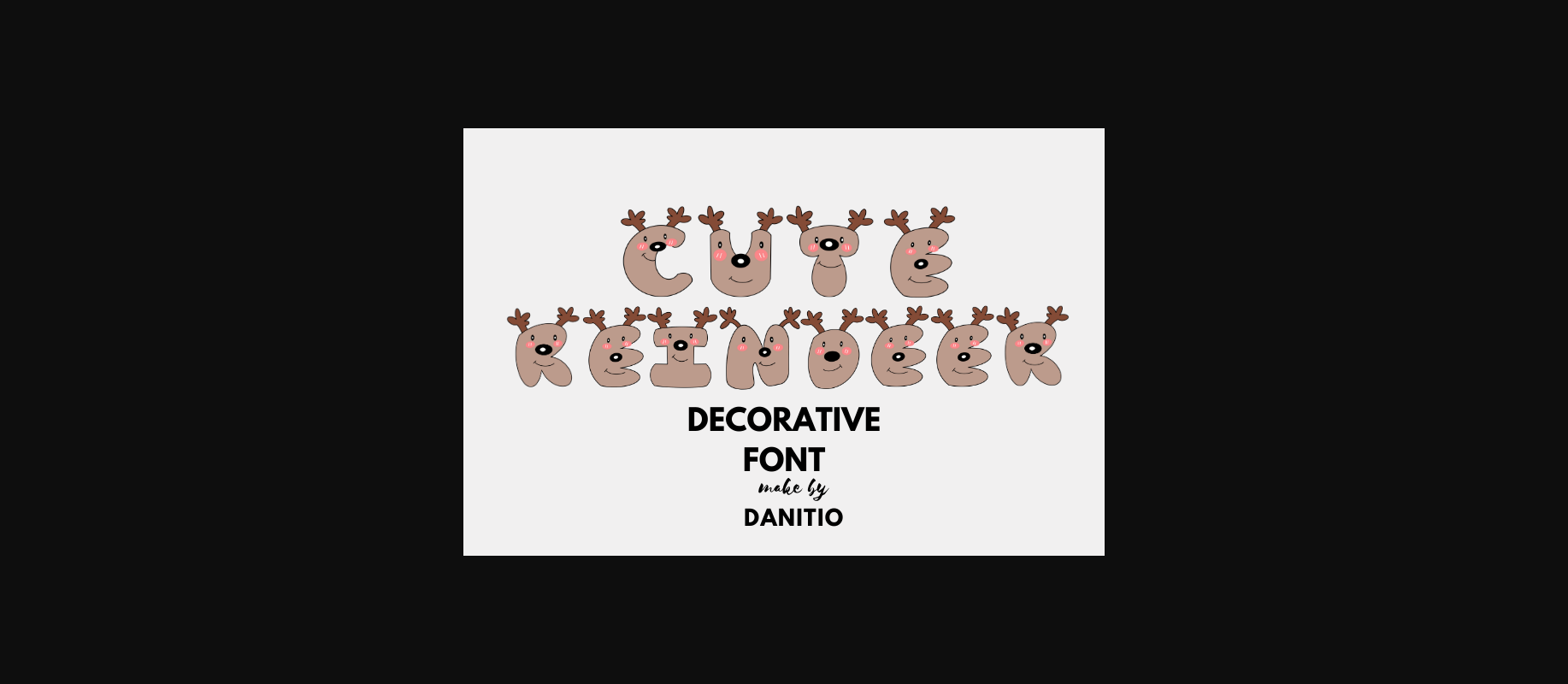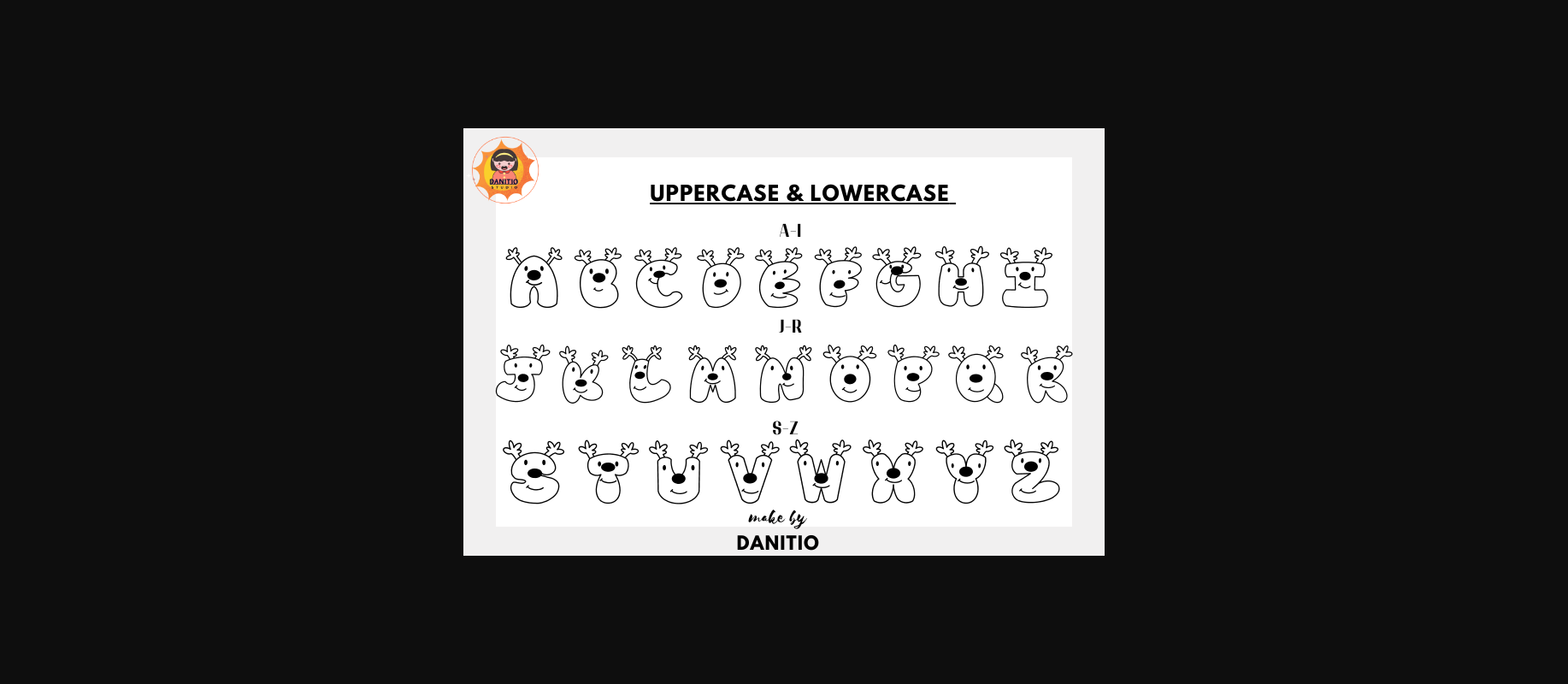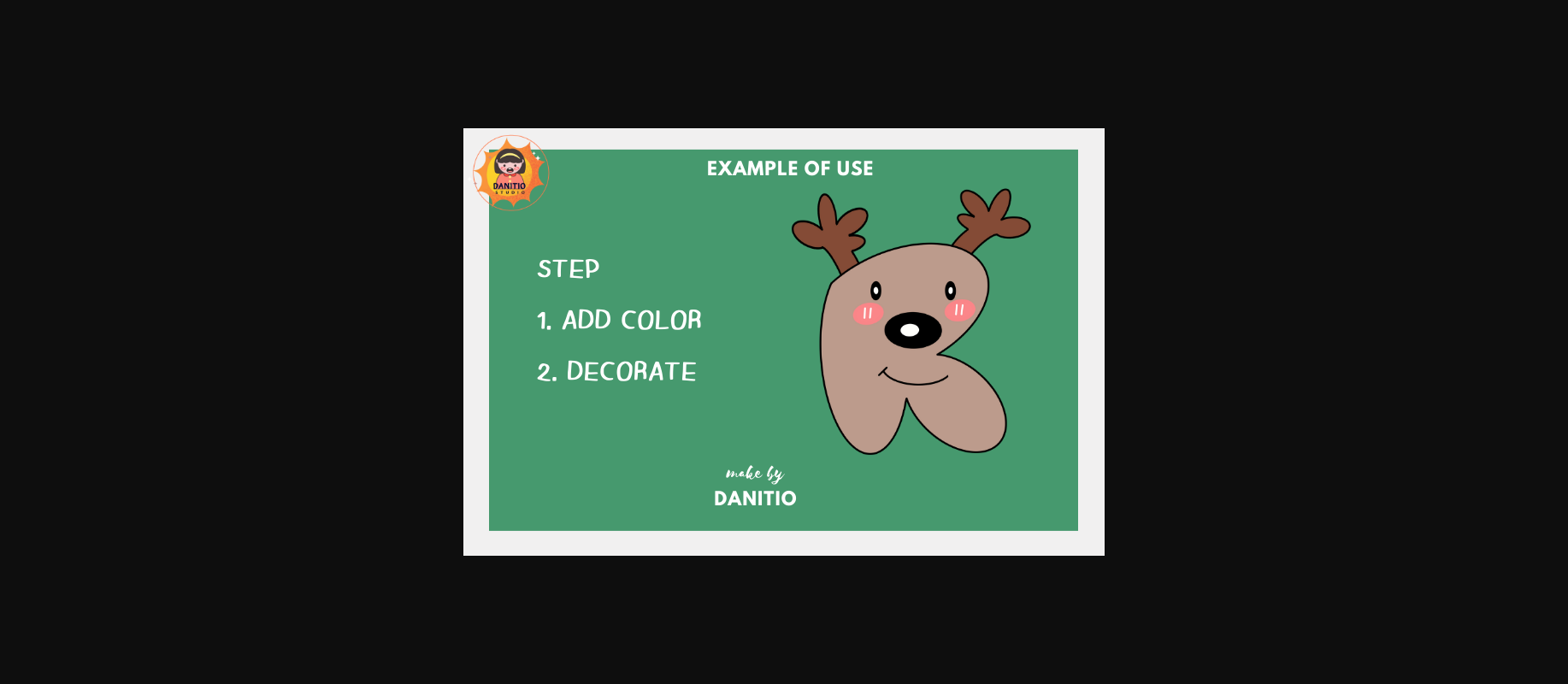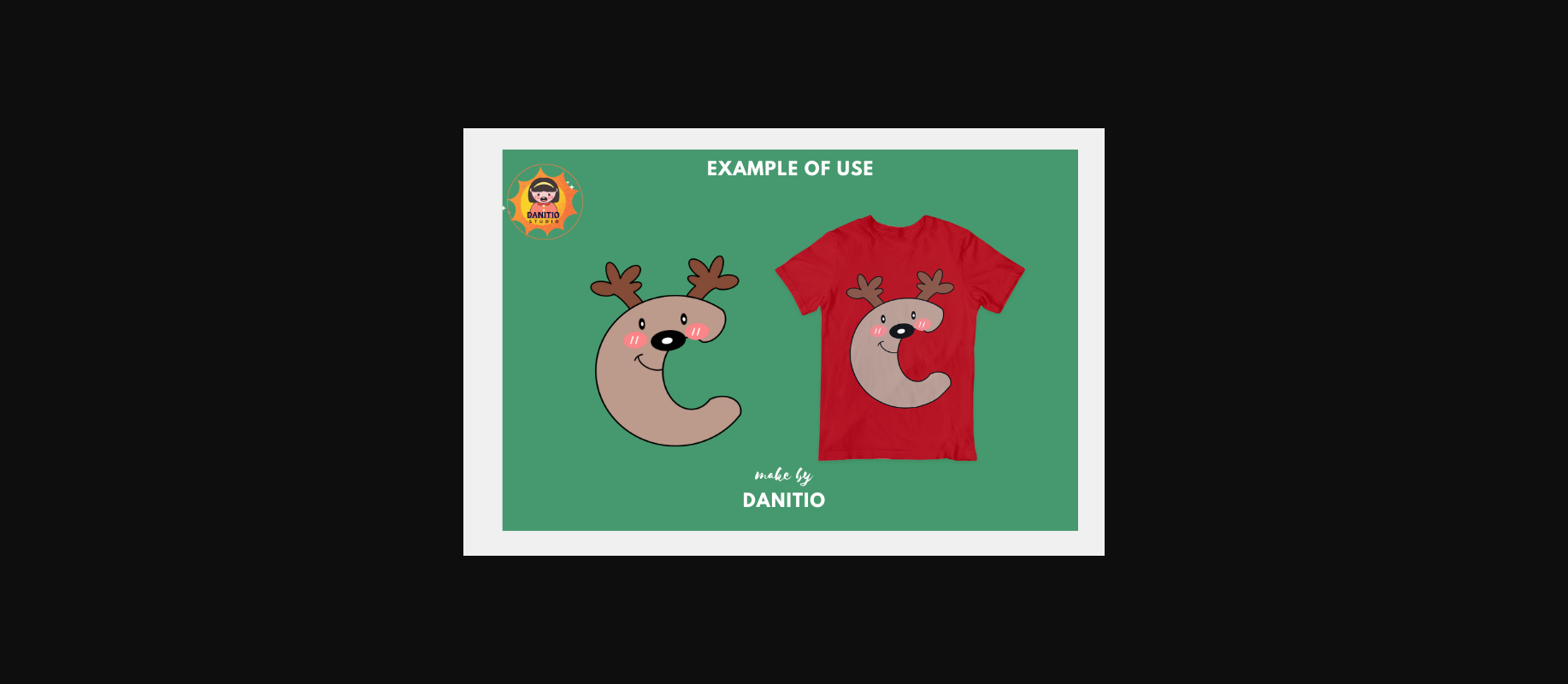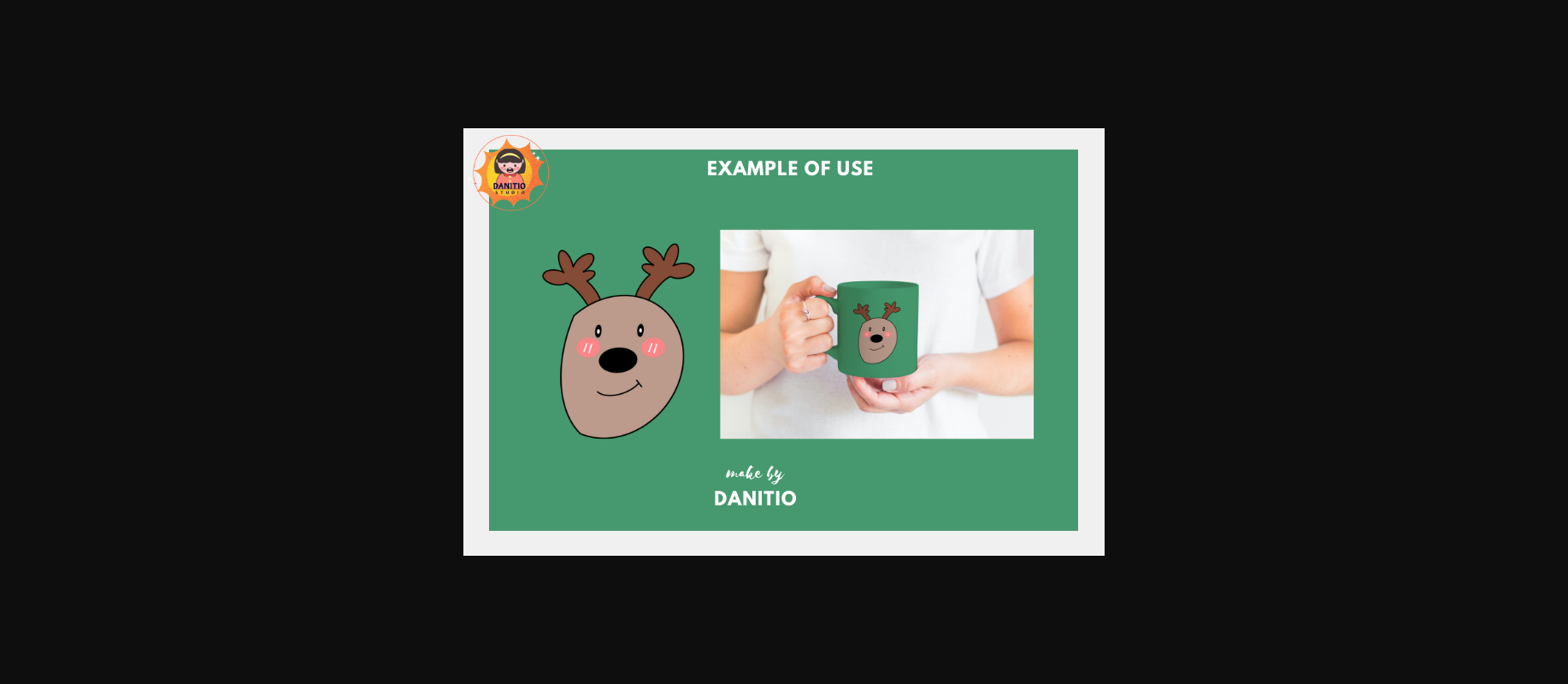
Cute Reindeer Font
About Cute Reindeer Font
Cute Reindeer is a decorative font that features a variety of cute reindeer faces. which is perfect for the Christmas season. You can give your Christmas-themed project a fun and quirky atmosphere. Spread the joy of the season with this font and let your creativity shine during this joyful time of the year.